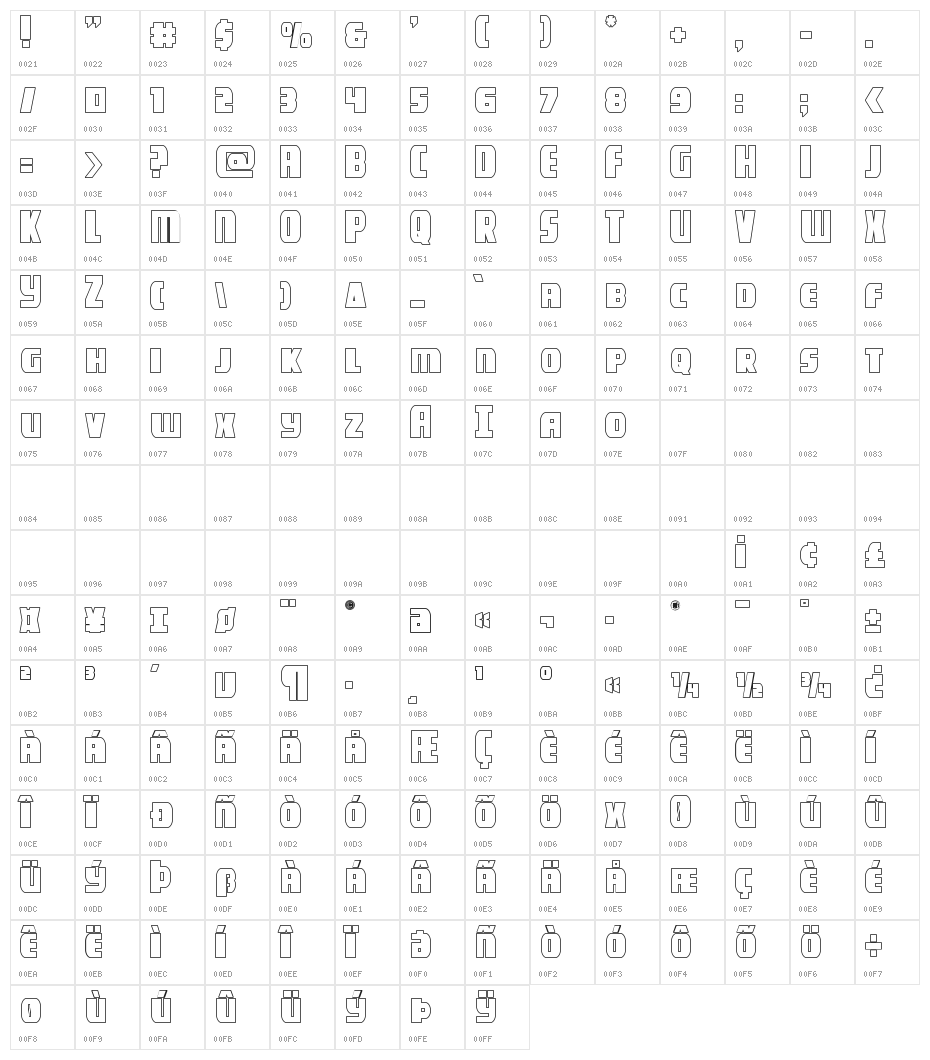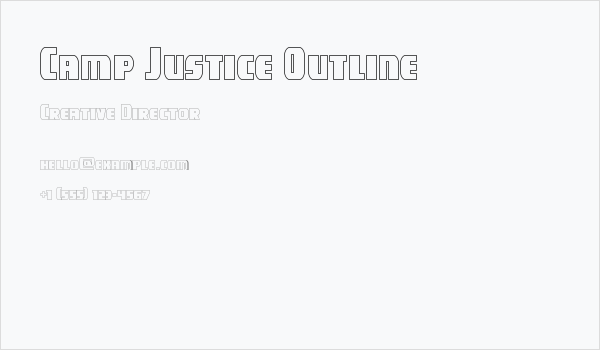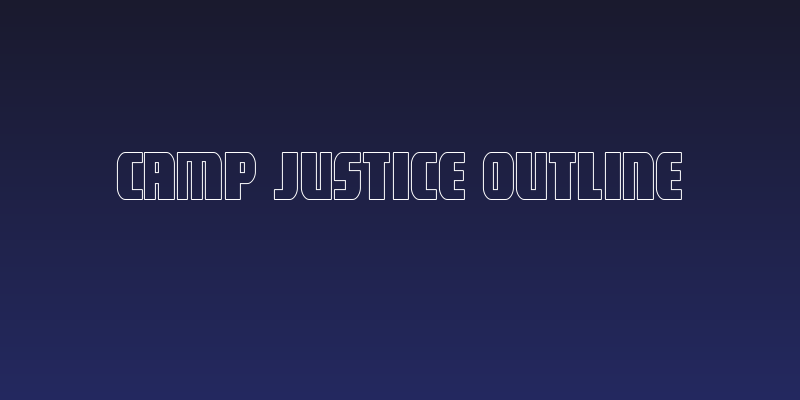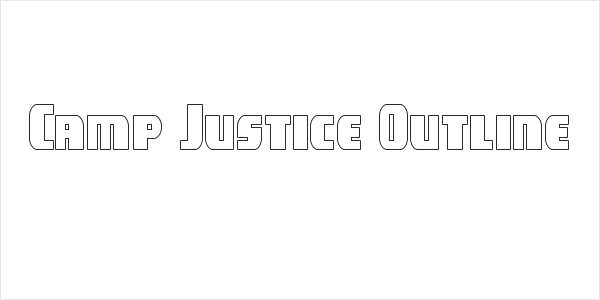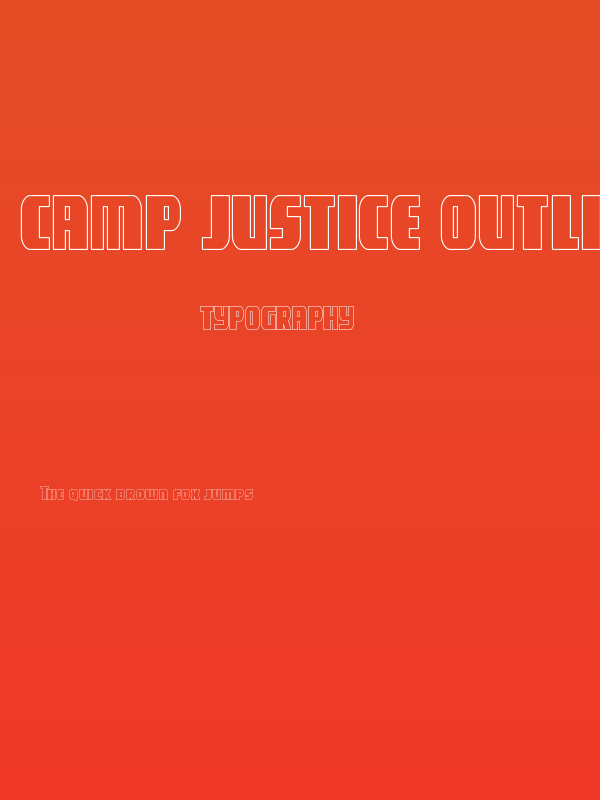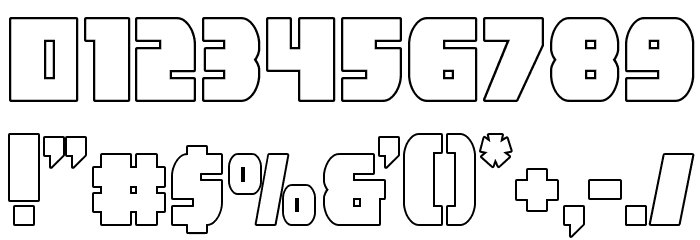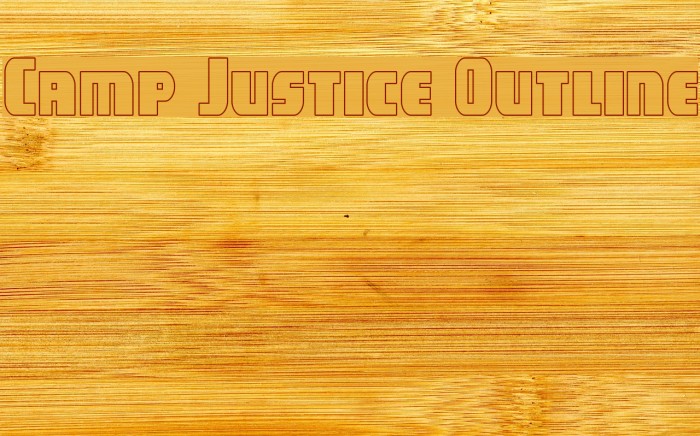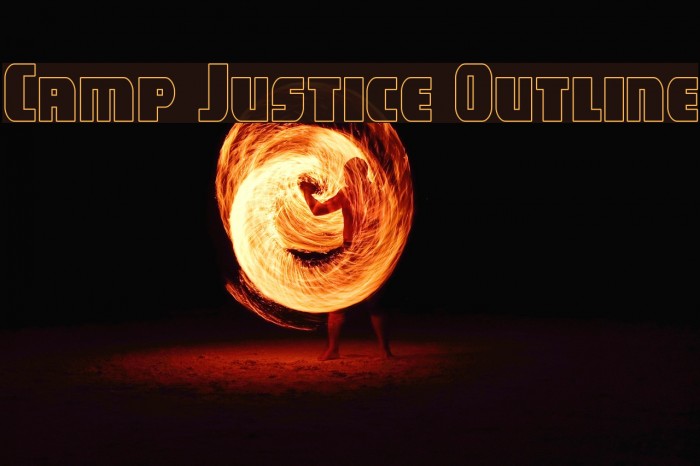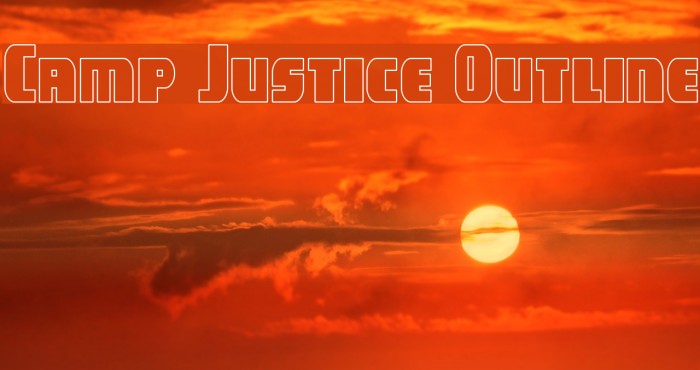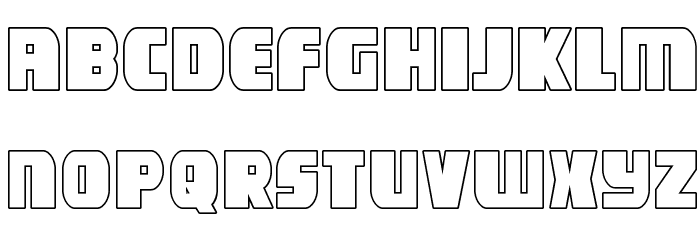
Camp Justice Outline Font
This font features a bold, geometric design with a distinct outline style. The characters are blocky and robust, with a uniform thickness that gives them a strong presence. The uppercase and lowercase letters maintain a consistent height, creating a cohesive look. The numbers and special characters follow the same bold outline, ensuring uniformity across all glyphs. The font's style is reminiscent of retro or vintage designs, making it suitable for projects that require a bold statement. Its clear and legible form makes it versatile for various applications.